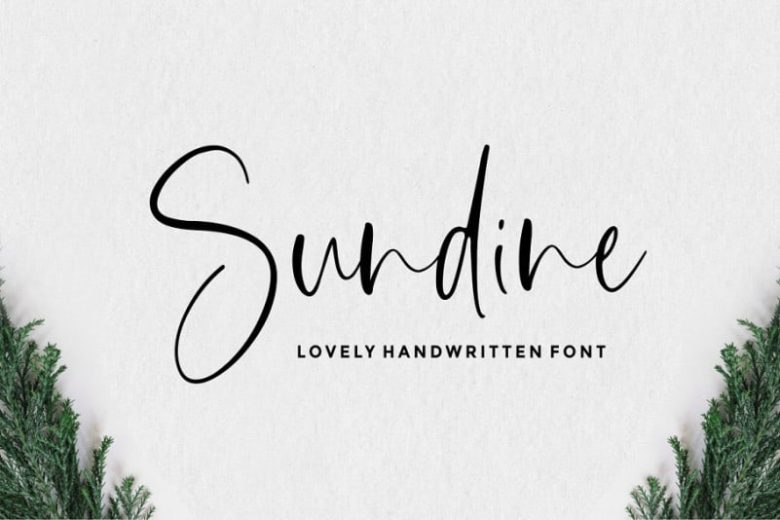
Sundine Handwritten Font
Sundine – Handwritten Font
Sundine is a lovely handwritten font, this font Is perfect for logo, invitation, stationery, wedding designs, social media posts, advertisements, product packaging, product designs, label, photography, watermark, special events or anything.
Sundine comes with full set of uppercase and lowercase letters, multilingual symbols, numerals, punctuation.